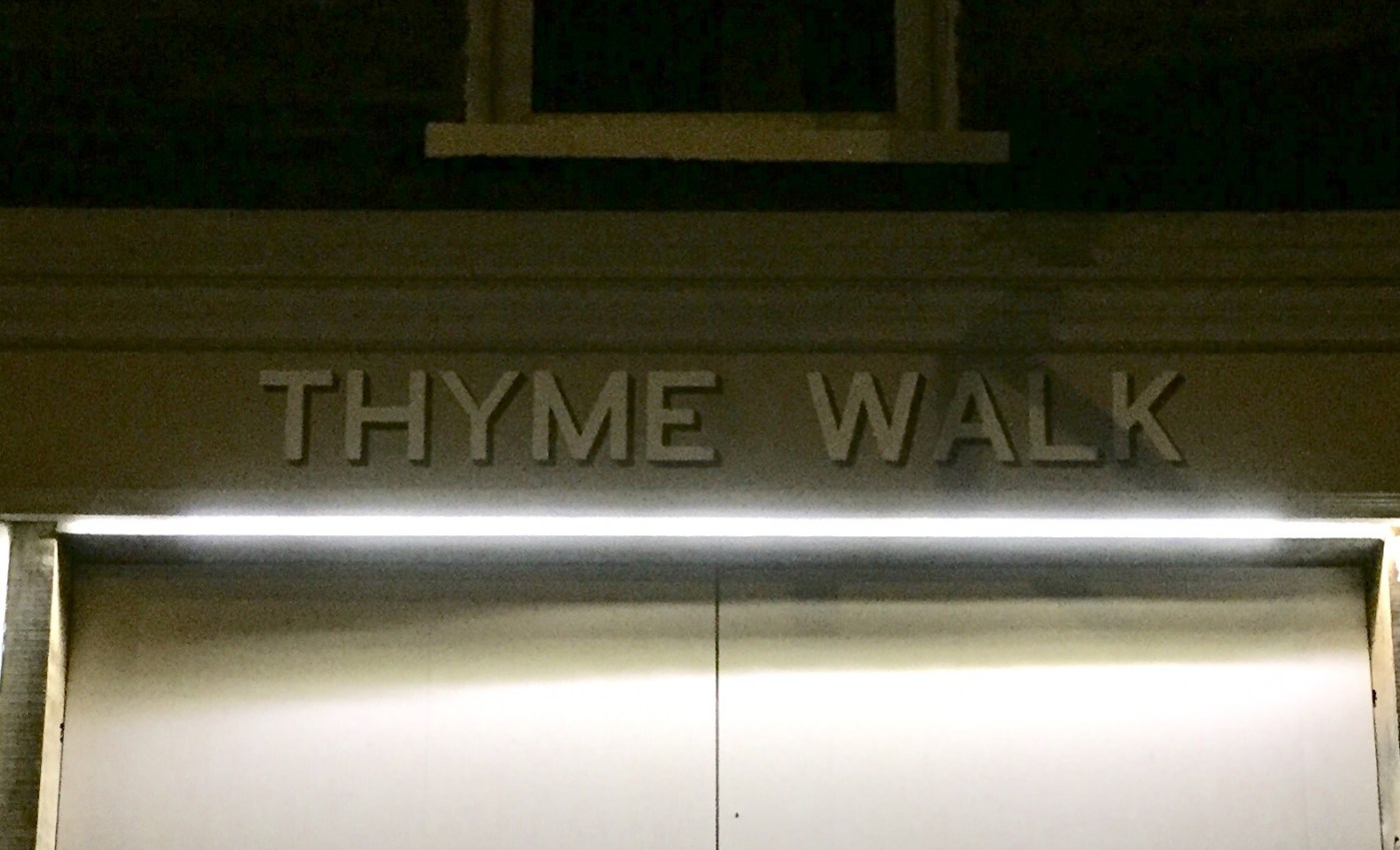
Sign-written Font
Please could someone help me identify this font (it's not a great photo I'm afraid) looking for something similar - including numerals.